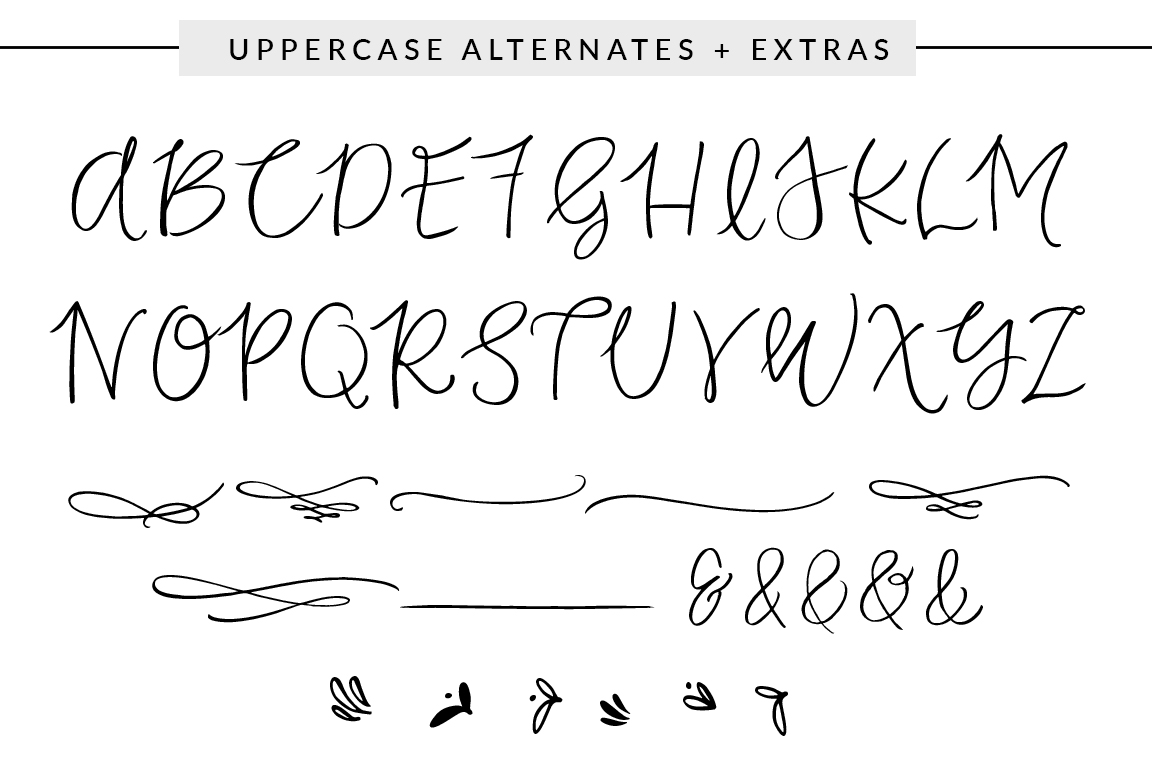
How To Use Swashes In Fonts
What are Swashes?
Swashes are decorative letter flourishes that add a flourish or extra little bit of pizzazz to the end of a letter. They are usually found in script fonts, and they can be used to add personality to any text. Swashes are great for adding a personal touch to logos, headlines, and anything that needs a bit of extra flair. Swashes can be used to give a text some visual interest, or simply to make a font look more dynamic. Swashes can be used to add a dramatic or whimsical feel to a text, or to create a unique and eye-catching design.
How to Use Swashes in Fonts
Using swashes in fonts is a great way to add a unique and interesting look to any text. Swashes can be used to add visual interest to a headline or logo, or to personalize a text. To use swashes in fonts, you first need to find a swash-capable font. These fonts typically have a selection of swashes already included in the font. Once you’ve chosen a swash-capable font, you can then choose the swashes you want to use. You can find swashes in the font’s character set, or you can also access them directly from your text editor.
Tips for Using Swashes
When using swashes in fonts, it’s important to be aware of the size of the swashes you’re using. Swashes can be quite small, and if they’re too small they can be difficult to see. It’s also important to be aware of the spacing between the swashes, as too much or too little spacing can make the swashes look messy. Additionally, you should avoid using too many swashes in a single text, as this can make the text look cluttered.
Where to Find Swashes
Swashes can be found in a variety of places. Many fonts come with swashes already included, and you can also find swashes in clip art and graphic design sites. You can also purchase swashes from font foundries, or download them from online sources. Additionally, you can create your own swashes by modifying existing fonts.
Swashes are a great way to add a bit of visual interest and personality to any text. With the right font and the right swashes, you can create a unique and eye-catching design that will make your text stand out. Swashes can be found in many places, and they can easily be added to any text to give it a more dynamic and interesting look.